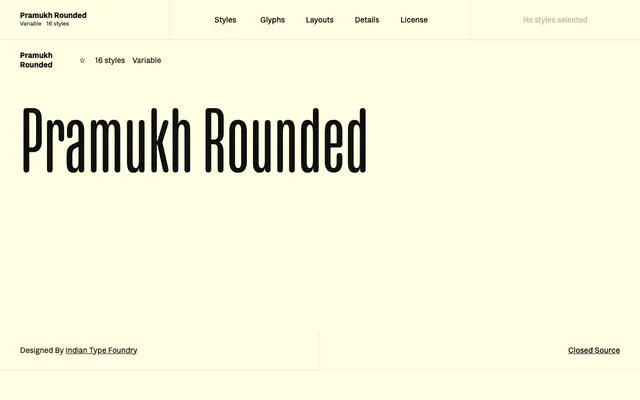
Pramukh Rounded
A very condensed geometric sans with rounded stroke terminals across eight weights and matching oblique italics, designed by Aarya Purohit and the Indian Type Foundry.
All strokes terminate in semicircular curves, softening what would otherwise be a strictly formal condensed sans. The family spans eight weights from Extralight to Black, each with an oblique italic companion, and is available as a variable font. Suited to corporate identity, editorial layouts and poster work where a narrow sans is required but a degree of warmth is wanted alongside the formal structure.
A condensed geometric sans-serif with rounded terminals on all strokes, giving it a friendly quality despite its narrow proportions. The modernist typographic vocabulary and oblique italics align it with geometric sans conventions.